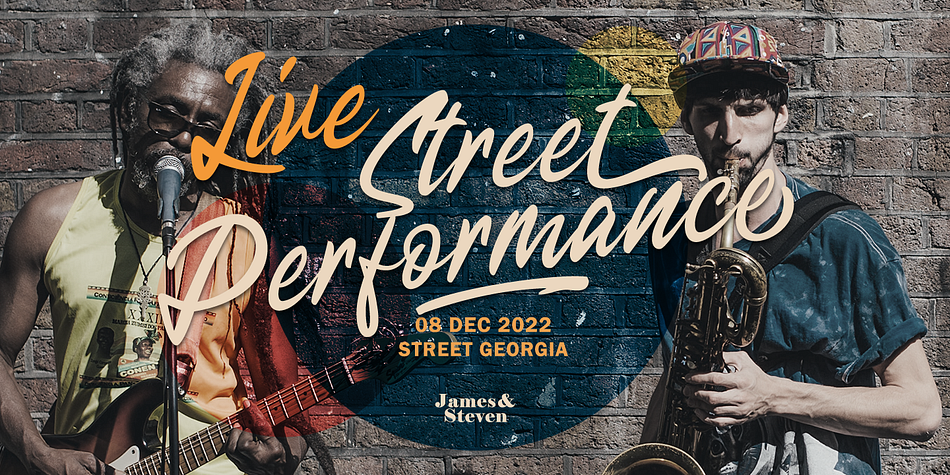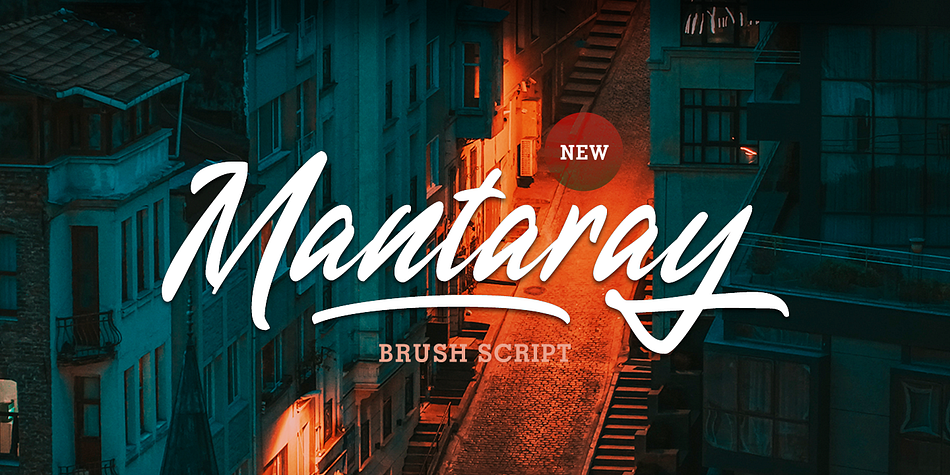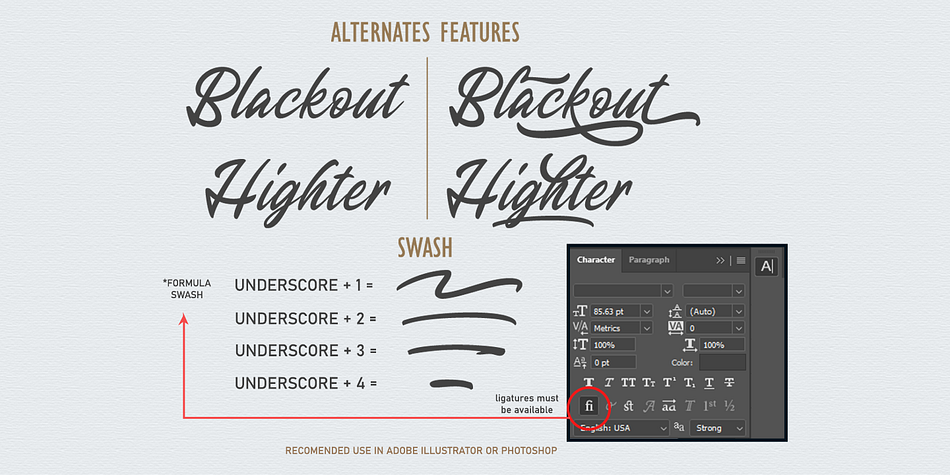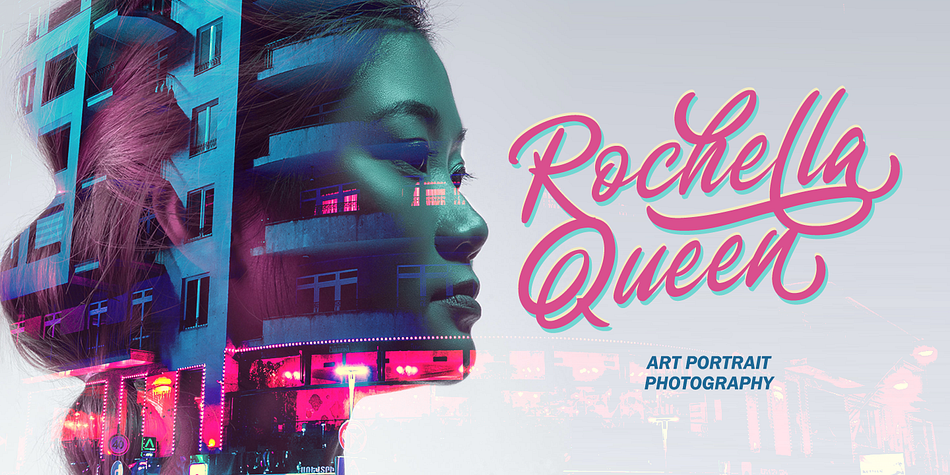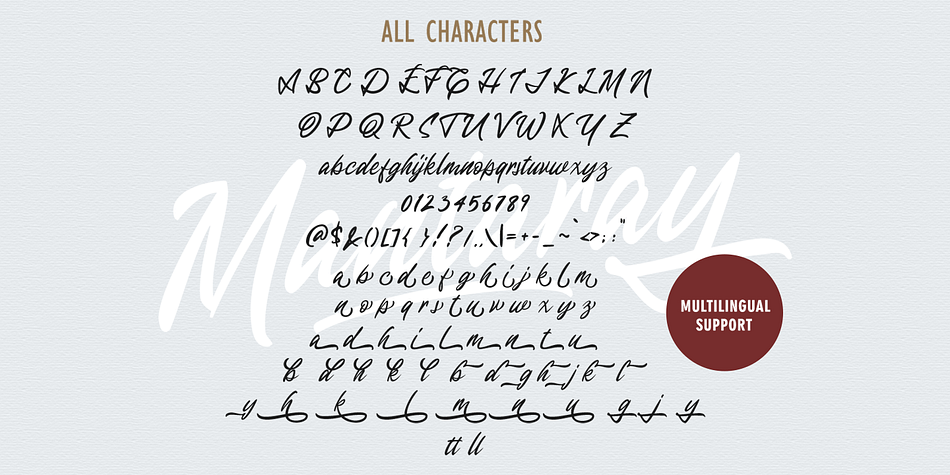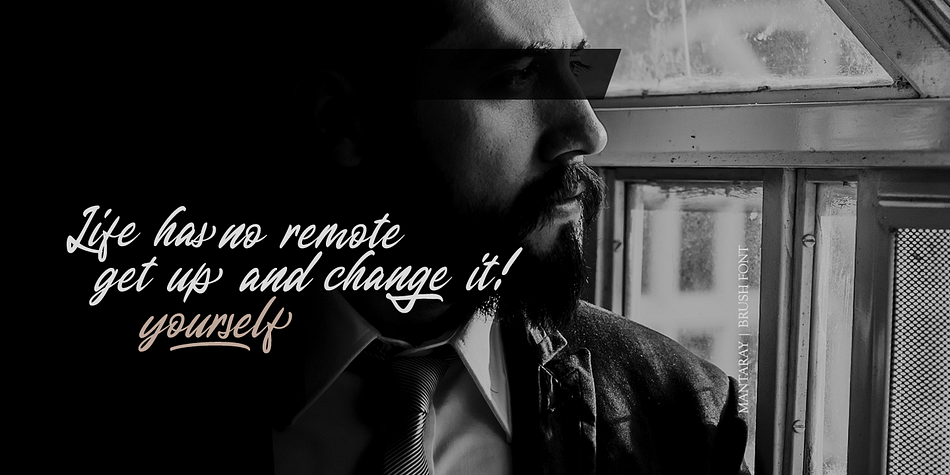
Designed by Hendry Juanda, Mantaray is a script font published by Letterhend Studio.
Introducing, Mantaray - a brush script which is purposely made for headline, display or logotype. This type of font perfectly made to be applied especially in logo, and the other various formal forms such as invitations, labels, logos, magazines, books, greeting / wedding cards, packaging, fashion, make up, stationery, novels, labels or any type of advertising purpose.
- alternates, swashes & ligatures